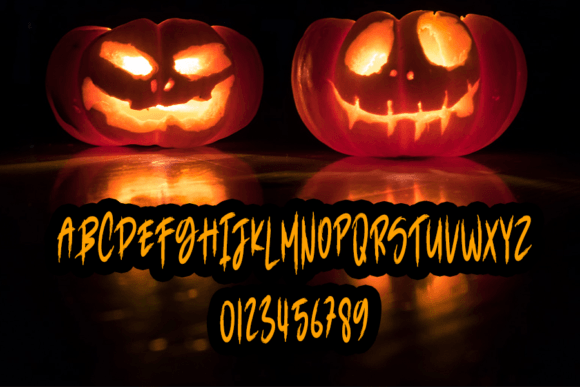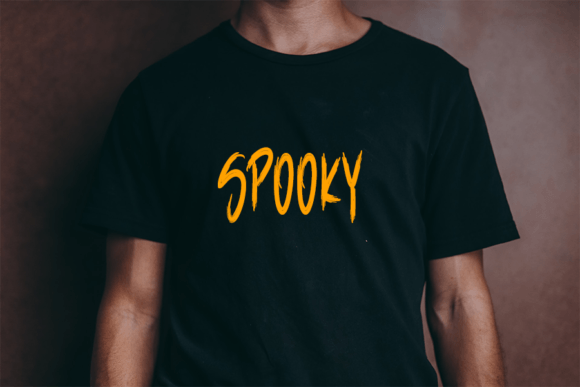
Unleash the Spookiness: A Comprehensive Guide to Creepy Halloween Font
As the spookiest time of the year approaches, designers and crafters are on the lookout for the perfect typography to add a touch of eeriness to their Halloween-themed projects. Look no further than the Creepy Halloween Font, a thick-lettered and spooky display font that’s sure to send shivers down the spine. In this article, we’ll dive into the world of Creepy Halloween Font, exploring its features, uses, and tips for incorporating it into your designs.
What is Creepy Halloween Font?
Creepy Halloween Font is a bold, eye-catching display font designed specifically for Halloween-related projects. Its thick, chunky letters are perfect for creating eye-catching titles, headings, and graphics that scream spooky fun. The font’s rugged, distressed texture adds to its eerie charm, making it an ideal choice for designers and crafters looking to create a haunting atmosphere in their work.
Key Features of Creepy Halloween Font
- Thick-lettered design: Creepy Halloween Font features bold, chunky letters that are perfect for creating eye-catching titles and headings.
- Spooky texture: The font’s distressed texture adds a rugged, eerie feel to your designs.
- Versatile: Creepy Halloween Font can be used for a wide range of Halloween-themed projects, from invitations and decorations to social media graphics and more.
Uses for Creepy Halloween Font
The possibilities are endless when it comes to using Creepy Halloween Font. Here are a few ideas to get you started:
- Halloween invitations: Create spooky invitations for Halloween parties, trick-or-treat events, or haunted house attractions.
- Decorations: Use Creepy Halloween Font to create eye-catching decorations, such as banners, garlands, or signs.
- Social media graphics: Add a touch of spookiness to your social media graphics, such as Halloween-themed Facebook posts or Instagram stories.
- Craft projects: Incorporate Creepy Halloween Font into your craft projects, such as scrapbooking, card-making, or DIY Halloween decorations.
Tips for Using Creepy Halloween Font
To get the most out of Creepy Halloween Font, here are a few tips to keep in mind:
- Use it sparingly: While Creepy Halloween Font is perfect for headlines and titles, it can be overwhelming if used excessively. Balance it with other fonts for a more cohesive look.
- Experiment with colors: Creepy Halloween Font looks great in bold, bright colors, but don’t be afraid to experiment with darker, moodier tones for a more ominous feel.
- Add textures and graphics: Enhance your designs by adding textures, graphics, or images that complement the spooky theme.
Creepy Halloween Font is the perfect addition to any Halloween-themed project or crafty idea. Its thick-lettered design, spooky texture, and versatility make it an ideal choice for designers and crafters looking to create a haunting atmosphere in their work. With these tips and ideas, you’ll be well on your way to unleashing the spookiness and creating unforgettable Halloween designs. So, don’t be afraid to get creative and let your imagination run wild – after all, the only limit is your imagination!